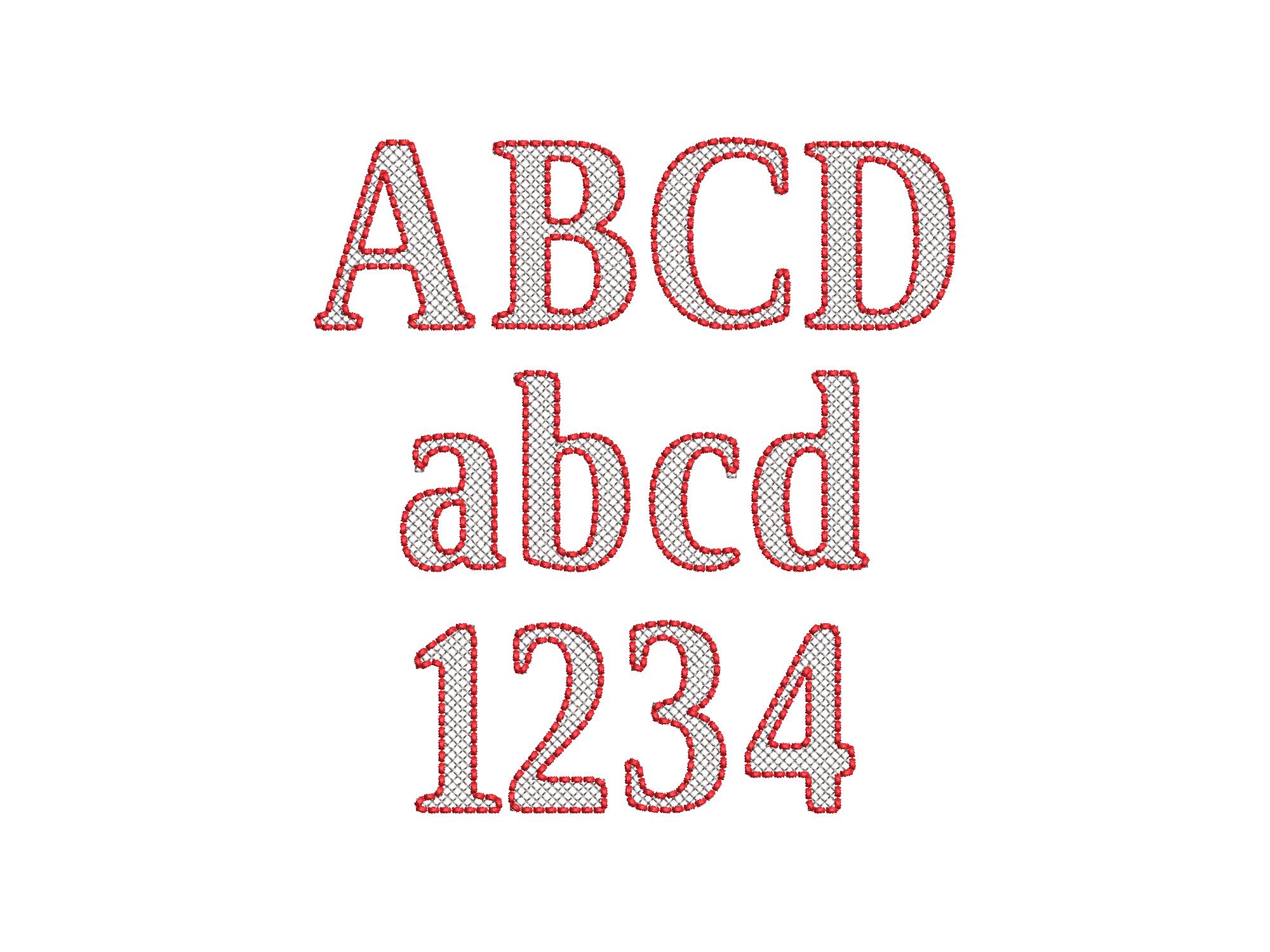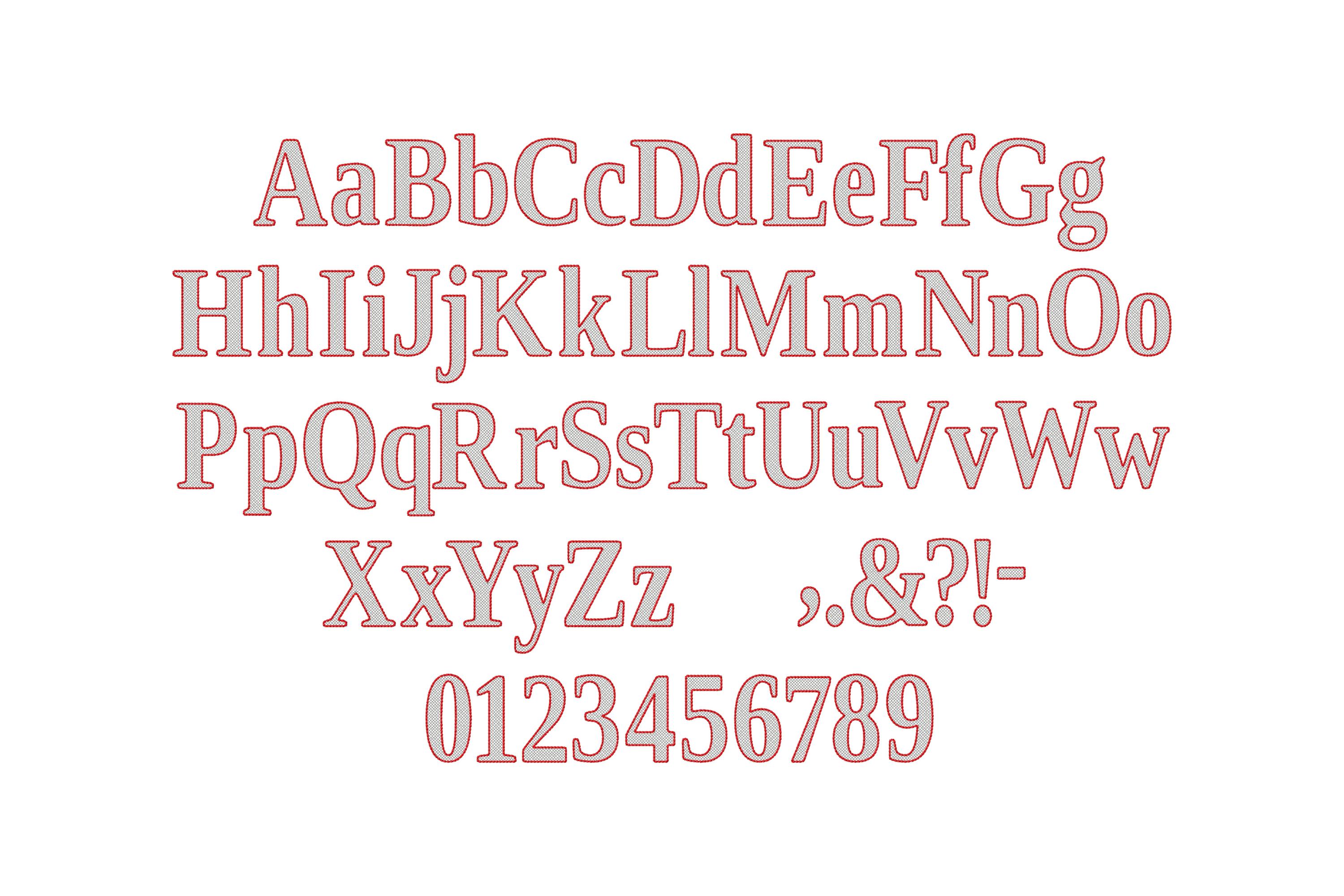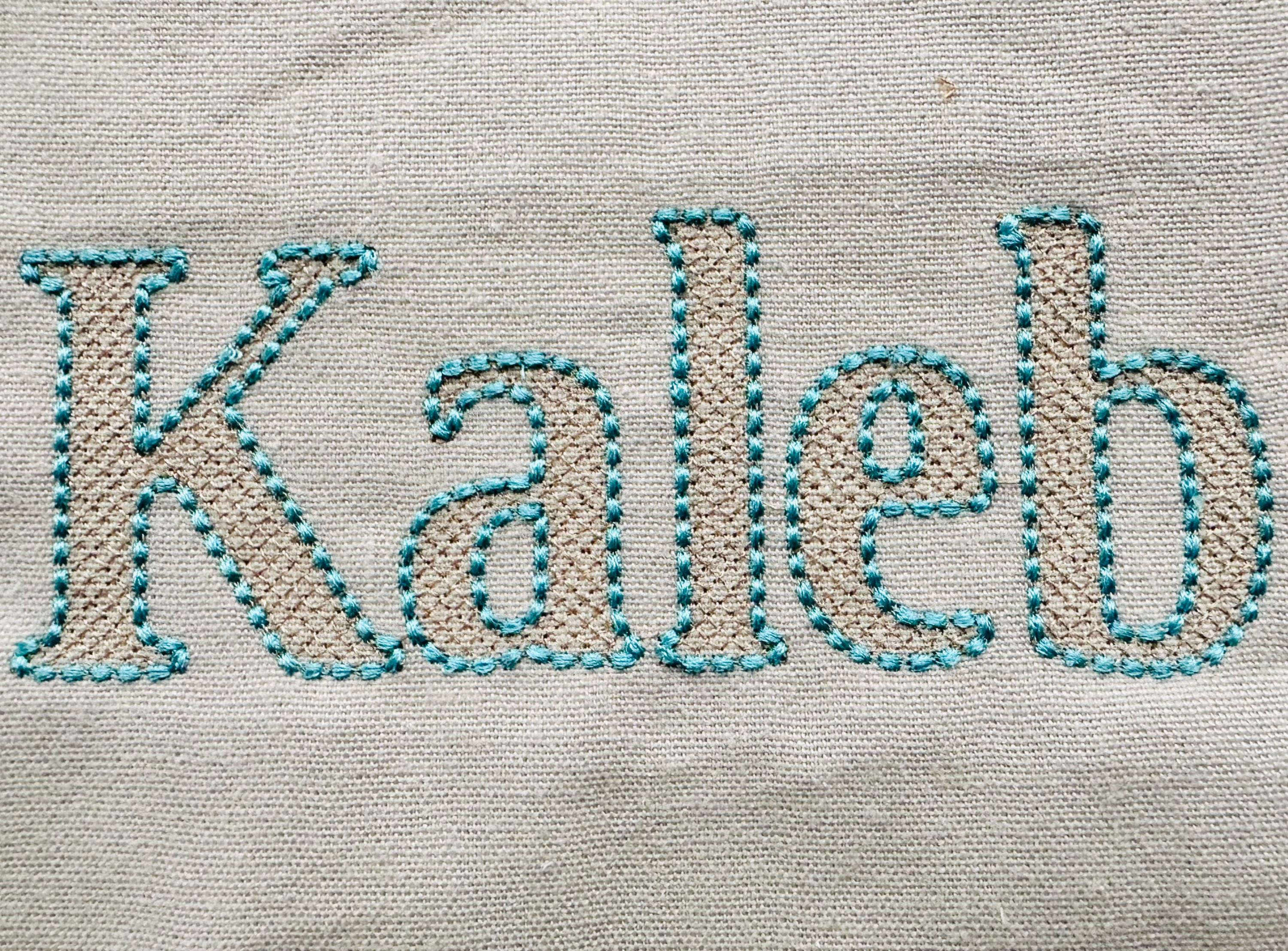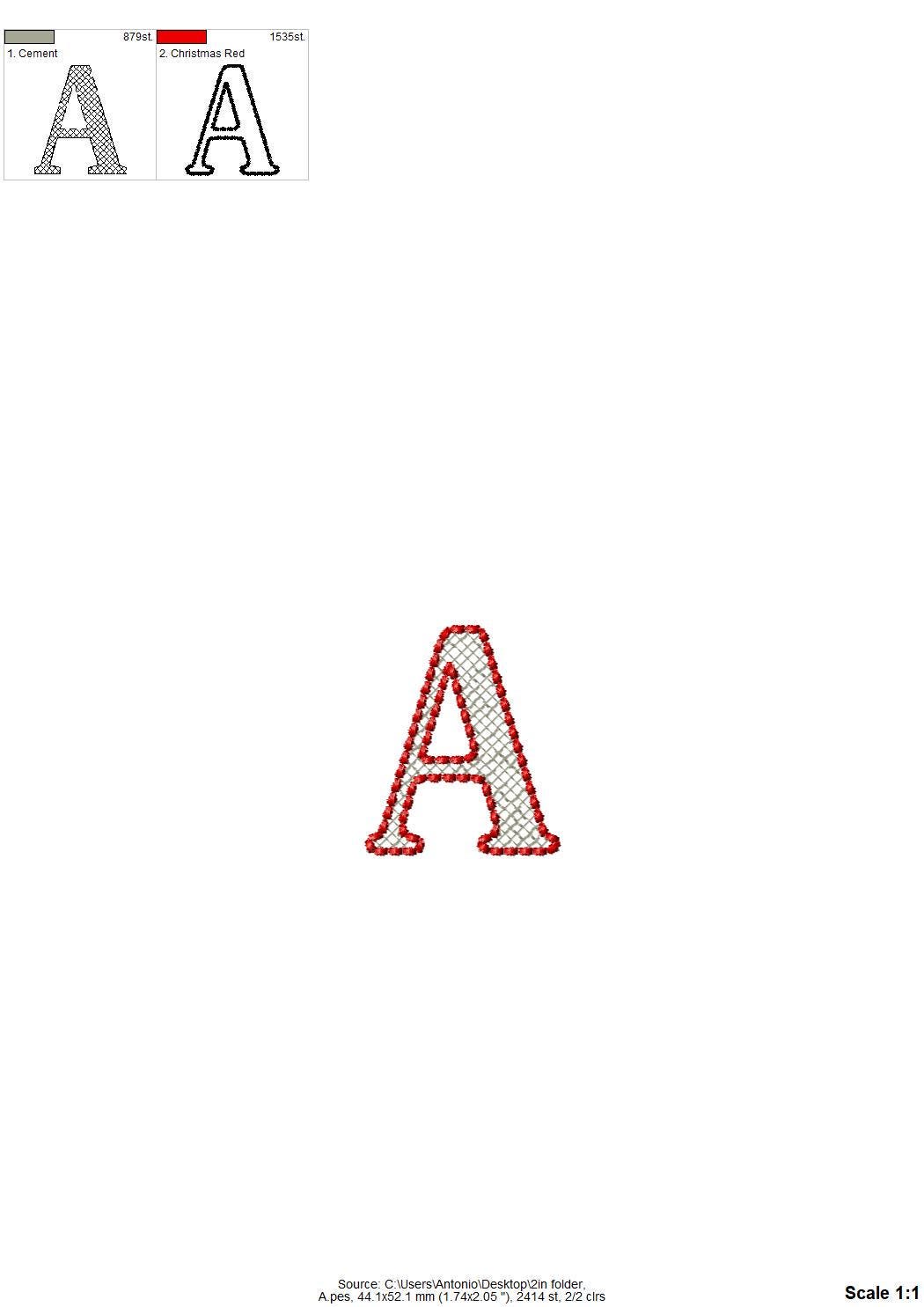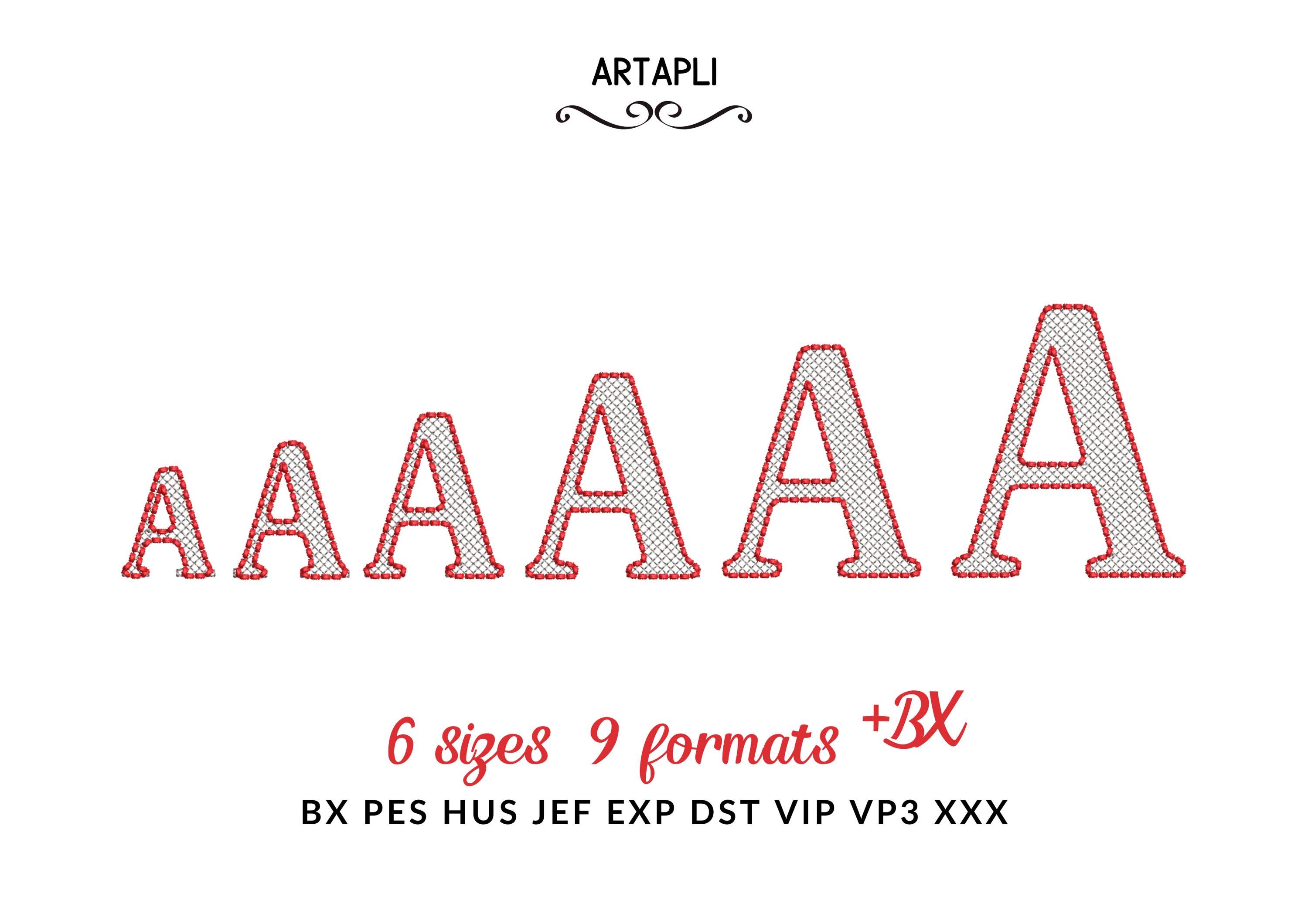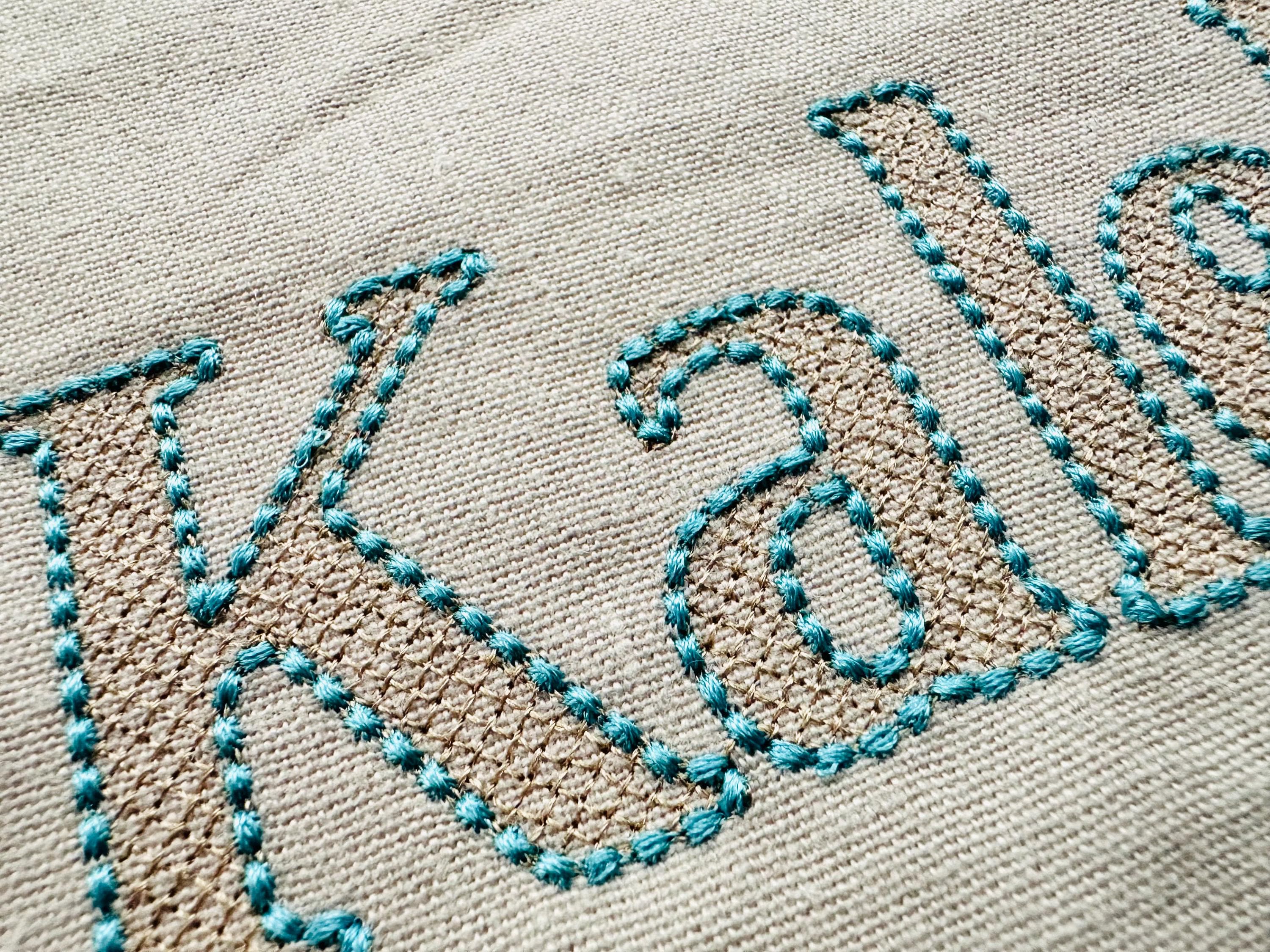
Puff bean Font machine embroidery designs assorted mini sizes Block type font puff bean stitch outline and crisscross fill alphabet letters
Entire alphabet: uppercase and lowercase letters Aa-Zz, numbers 0-9, and punctuation.
The puff bean stitch outline is slightly puffed and gives a 3D effect to letters (except small sizes 1.2" and 1.4" have a bean stitch outline).
The crisscross fill is transparent, and the background fabric looks through. Stunning effect!
* I found that the only way to make the small version functional was to lighten the outline. That
way, the stitches follow the shape correctly without clumping or losing detail.
* Added a smaller size 1.2 inches.
* Fixed the outline on the 1.4 inch version.
* Revised the 1.7 inch outline to improve consistency.